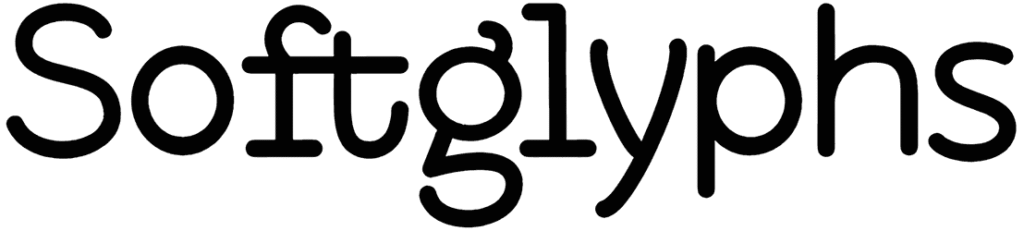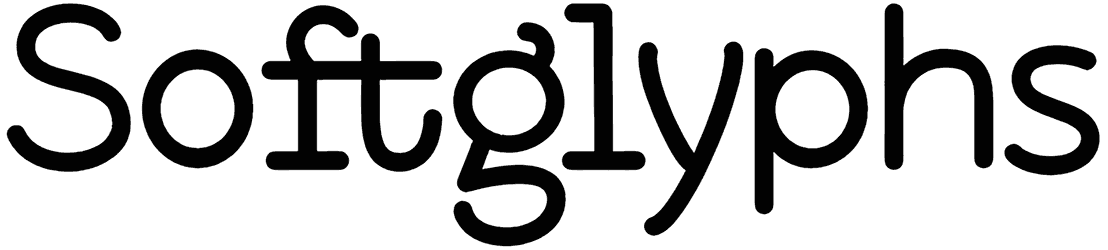
Softglyphs Font
Softglyphs could be the face of the typewriter fonts if typewriters were invented in the modern world, so they could keep things neat and organized, but also a lot smoother than what we know now.
Then again, you can’t let that hint of digital theme go to waste, especially when, against all odds, it somehow underlines some playfulness too. Doesn’t that make Softglyphs the best fit for your gaming graphics, like menus in video games, tickets to sports events, or what?